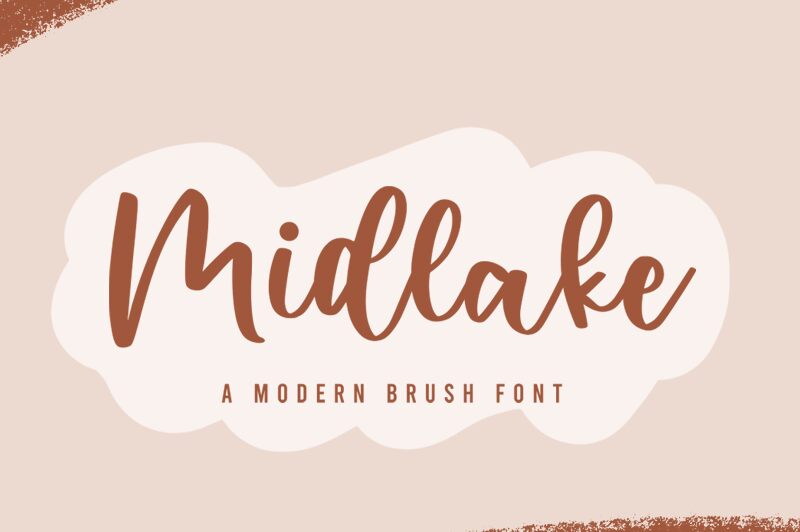
Midlake, designed by Vultype, is a modern handwritten font that effortlessly blends elegance with informality. Its fluid strokes and organic shapes make it suitable for a wide range of projects.
For branding and logo design, Midlake's unique charm adds a touch of authenticity to any product or service. In editorial layouts, its legibility and contemporary feel bring a fresh perspective to magazine spreads or book covers. With its versatile nature, Midlake also shines in digital media, enhancing website headers and social media graphics with an air of creativity.
The possibilities are endless with this captivating font.